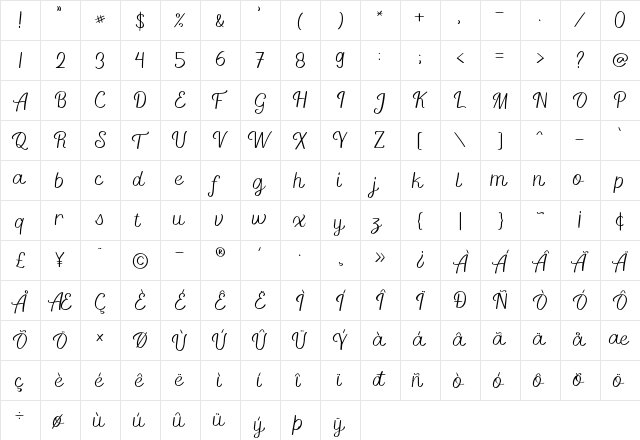
Rachels Regular
Design Context for Rachels Typeface
Rachels is a composed and adaptable typeface that performs quietly and consistently across a wide range of design contexts.